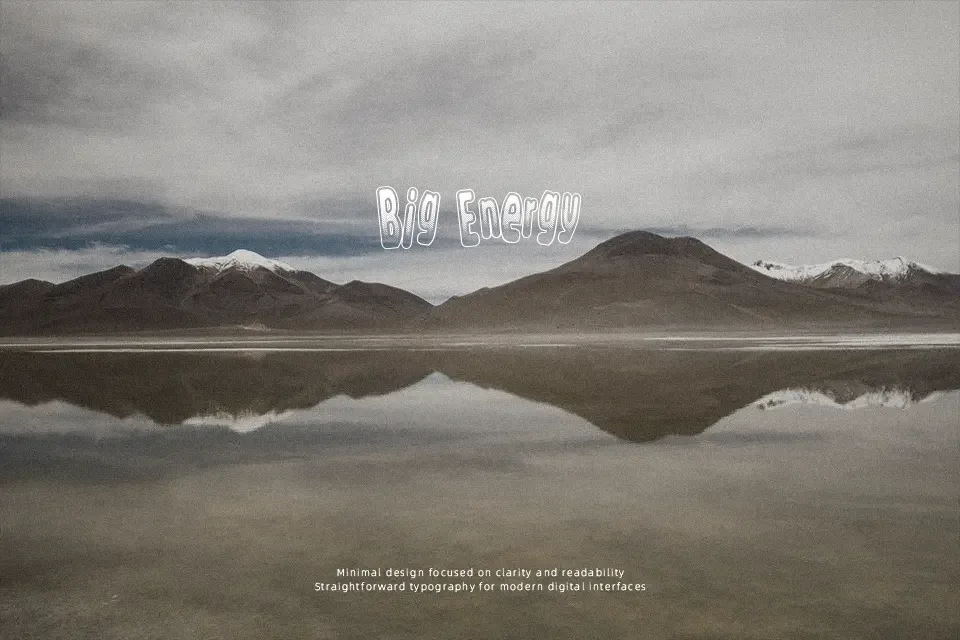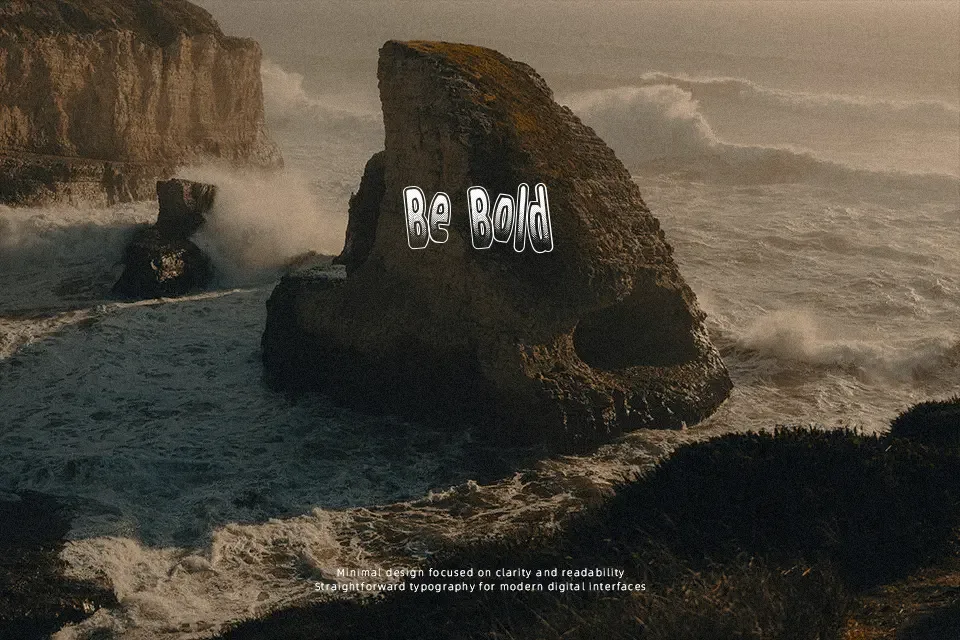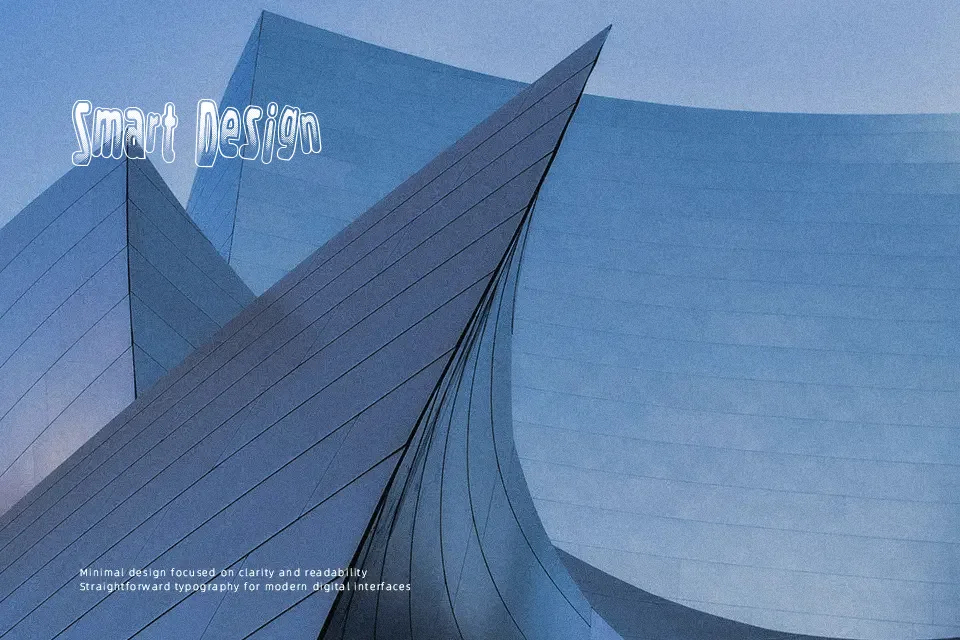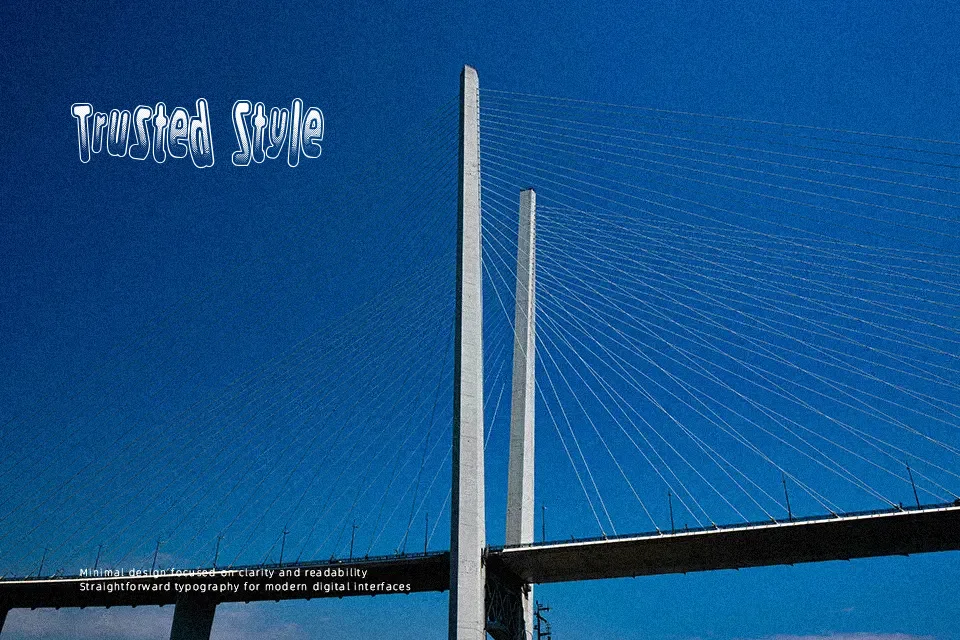
Circus Party Font
A vibrant carnival banner or festive celebration flyer benefits noticeably from Circus Party Font, which features thick, whimsical strokes paired with playful, irregular proportions. The hand-drawn character silhouettes create an informal visual rhythm that immediately engages viewers in large display settings. Spacing between individual glyphs remains relatively tight, allowing compact header arrangements that preserve strong graphic presence on posters and birthday cards. Readability stays solid at prominent headline sizes, but the heavy weights and quirky detailing significantly compromise legibility when scaled down to continuous body paragraphs or small captions. Overall, the design functions exceptionally well as an eye-catching accent for short, high-energy announcements.
Best For: carnival event posters, children birthday invitations, festive party banners, amusement park signage
Not Ideal For: continuous body text, corporate business reports, mobile interface captions, legal documentation
Perfect for advertising, headline, and invitation, with a bold and cartoon style.